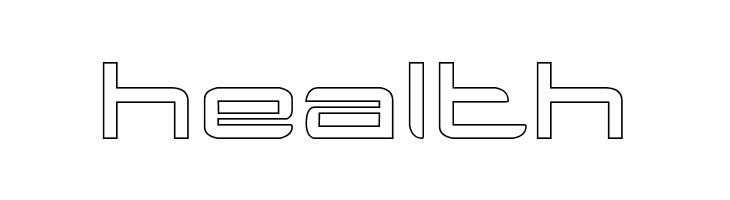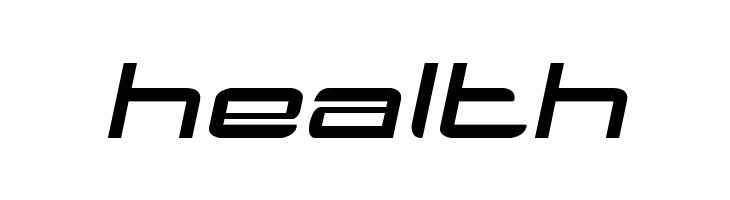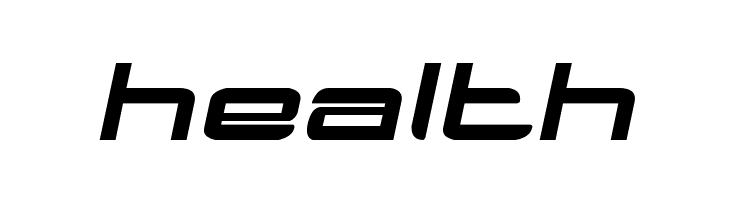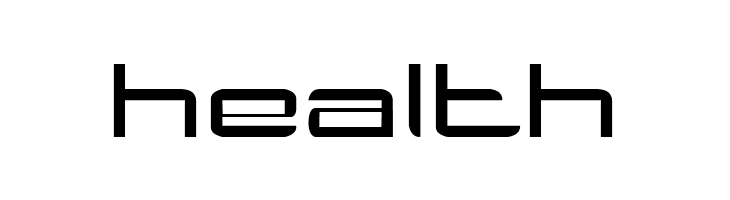
A futuristic, hollow, geometric font with clean lines and angular shapes.
A sleek, modern italic font with geometric precision and a futuristic appeal.
A bold, italicized font with a modern, futuristic style.
A sleek, modern font with geometric lines and a futuristic style.